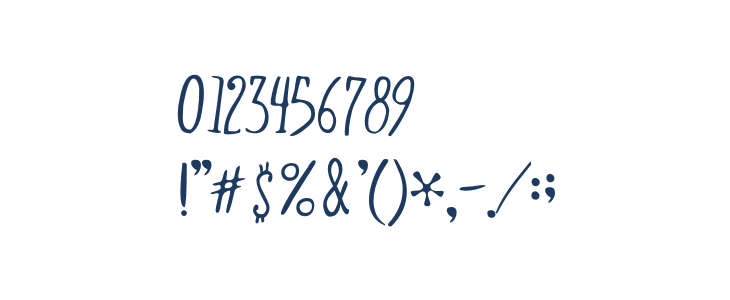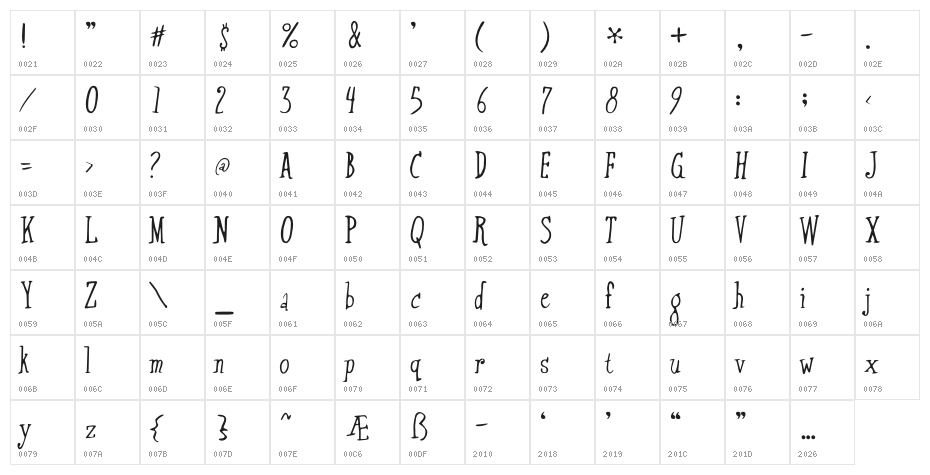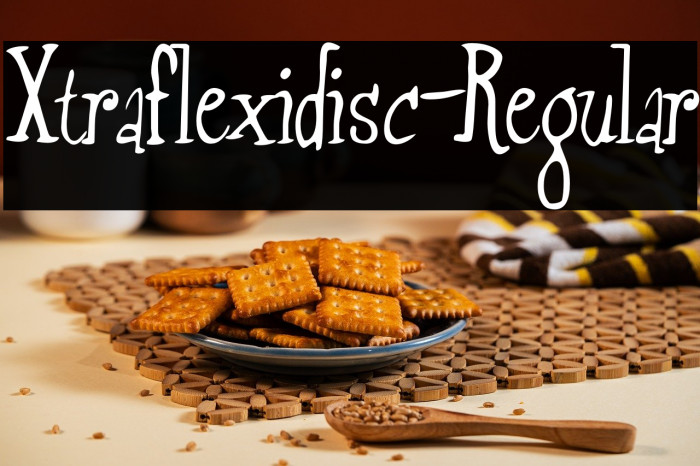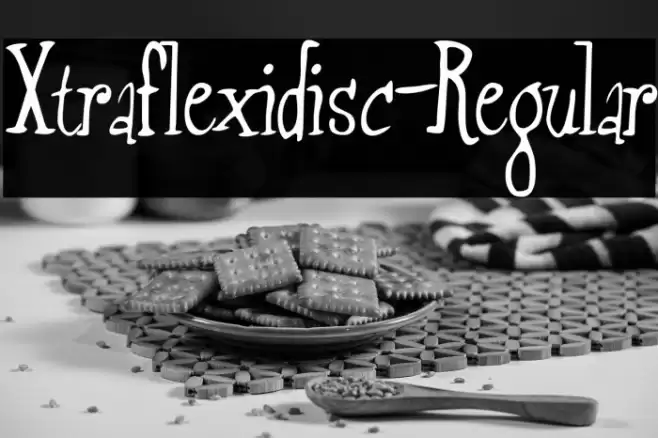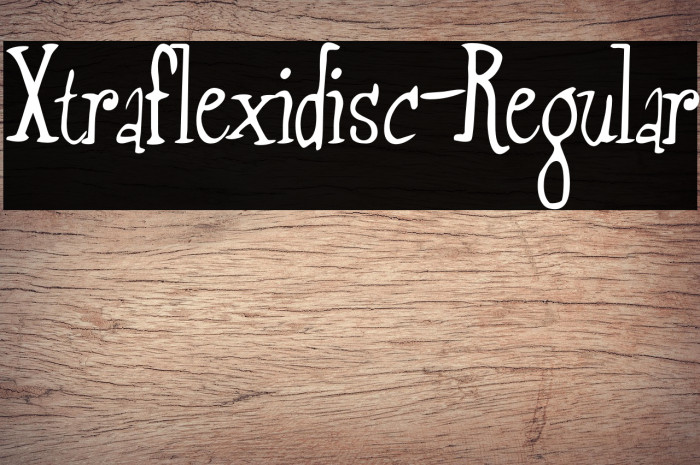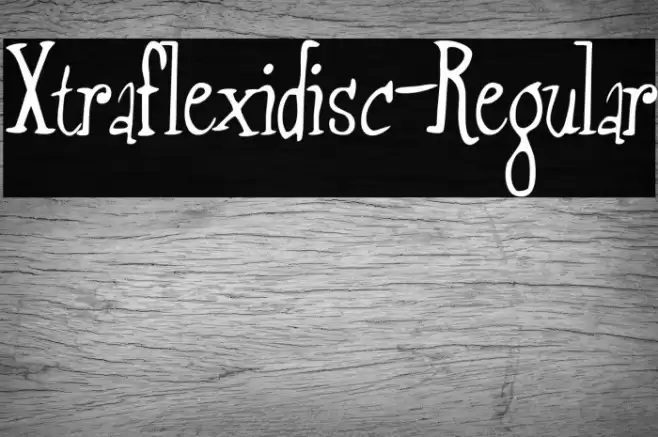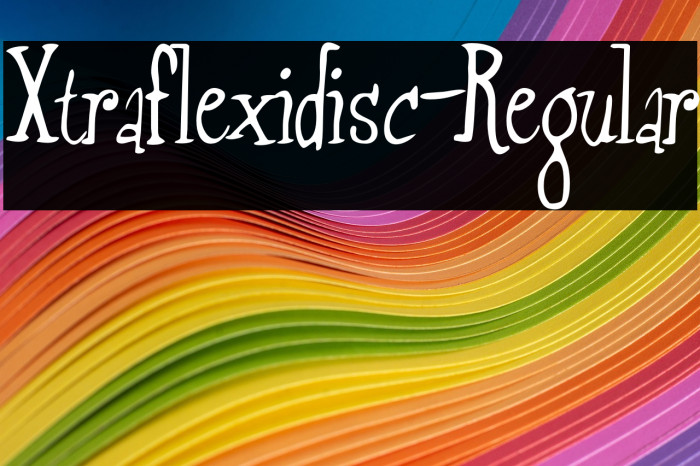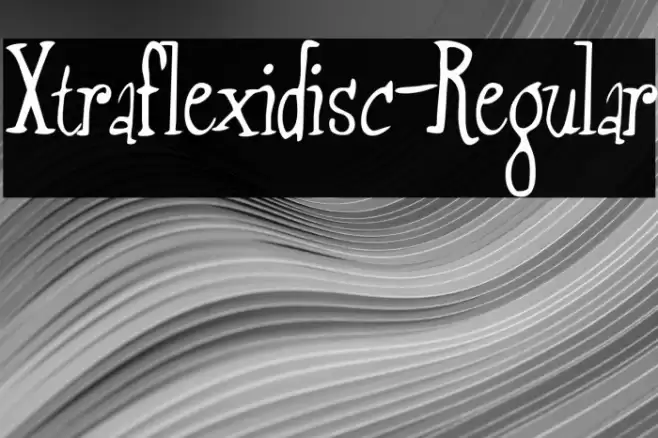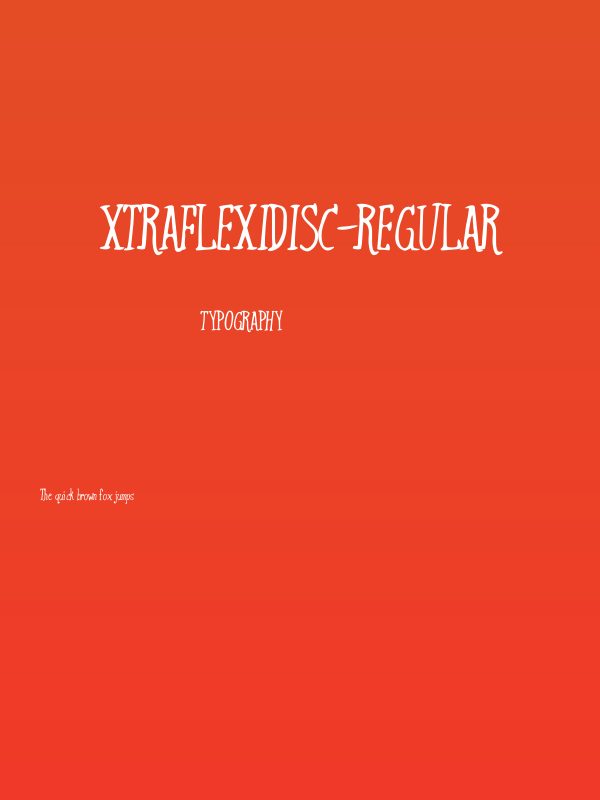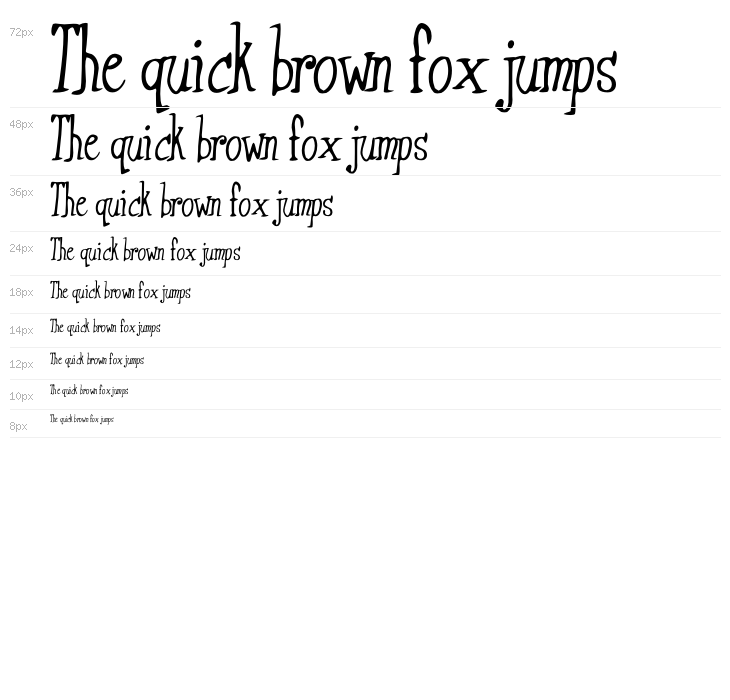
Xtraflexidisc-Regular Font
Xtraflexidisc-Regular Description
This font features a playful and whimsical design with a hand-drawn aesthetic. The characters have a unique, slightly irregular shape that adds a sense of movement and energy. The uppercase letters are tall and narrow, while the lowercase letters are more compact, creating an interesting contrast. The numbers and special characters maintain the same lively style, making the font versatile for various creative projects. The strokes vary in thickness, giving it a dynamic and engaging appearance.
| Overall Style | Whimsical, Playful |